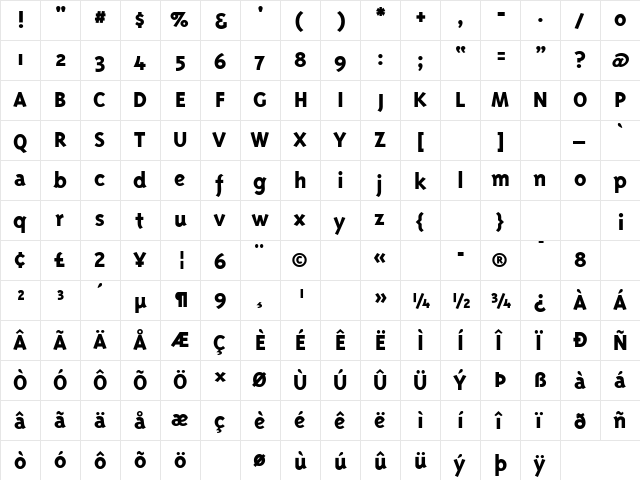
PannikinBlackSSK Regular
Design Context for PannikinBlackSSK Typeface
PannikinBlackSSK offers clean, dependable letterforms without strong stylistic allegiance, making it a practical choice for designers who need flexibility.
Pro Tip: Use PannikinBlackSSK in both headline and body roles to test its range before committing to a single application.